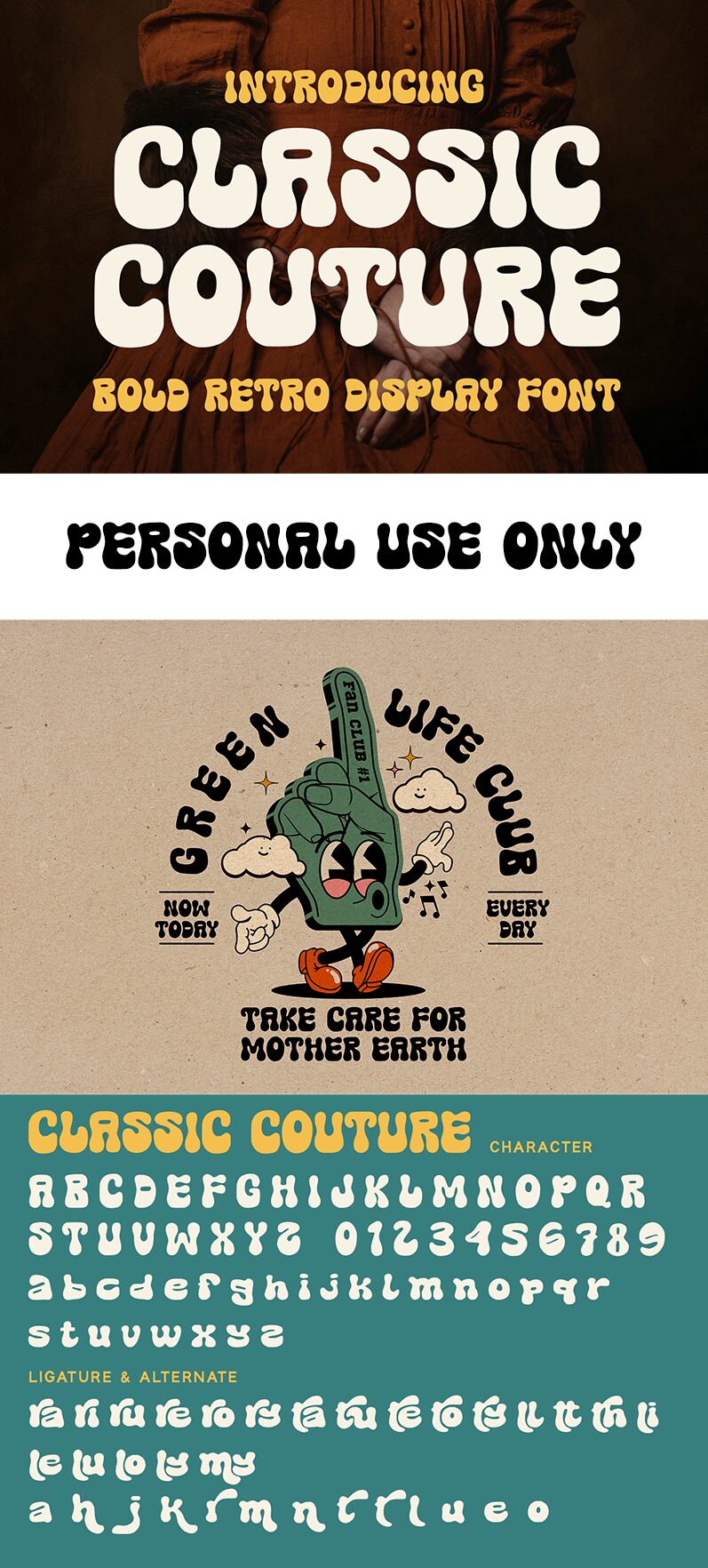
Classic Couture
Classic Couture font by Alpaprana Studio is a free display typeface with a groovy style, featuring bold and stylish characters that radiate vintage vibes. The retro-inspired font showcases the big showy expressions of the psychedelic 1970s with curved forms and smooth whimsical transitions.
Use for posters, banners, flyers, movie headlines, ads for concerts or festivals, album covers or book covers. This cool classic-looking font can also fit branding ideas and design projects in fashion and others.